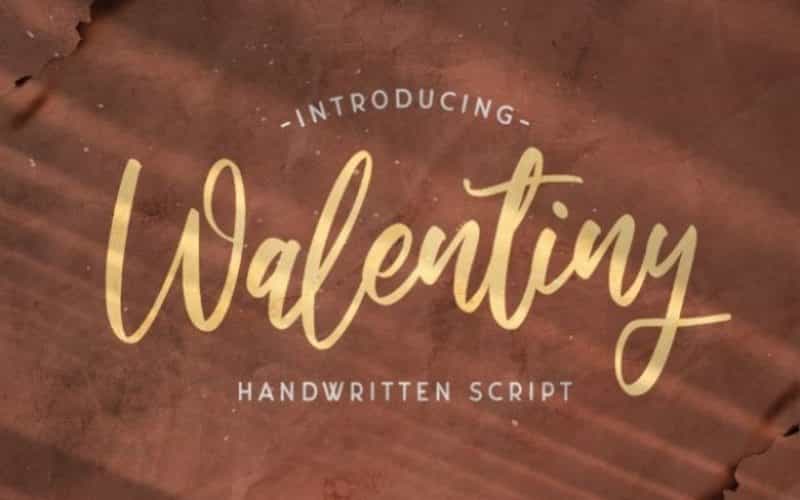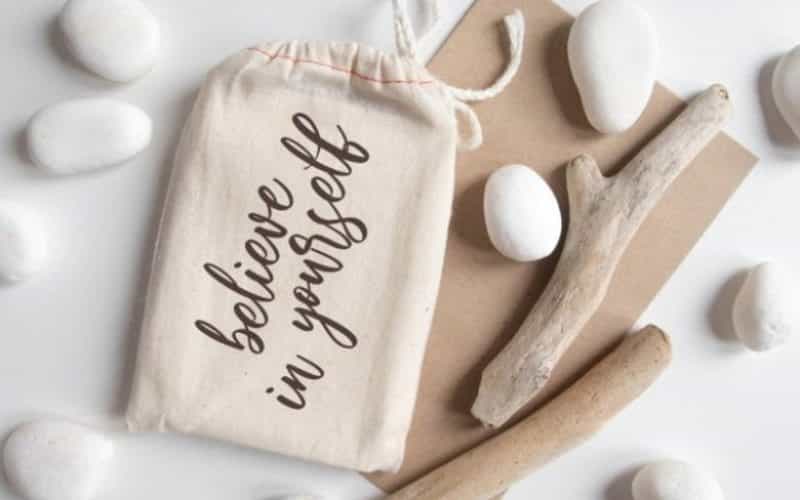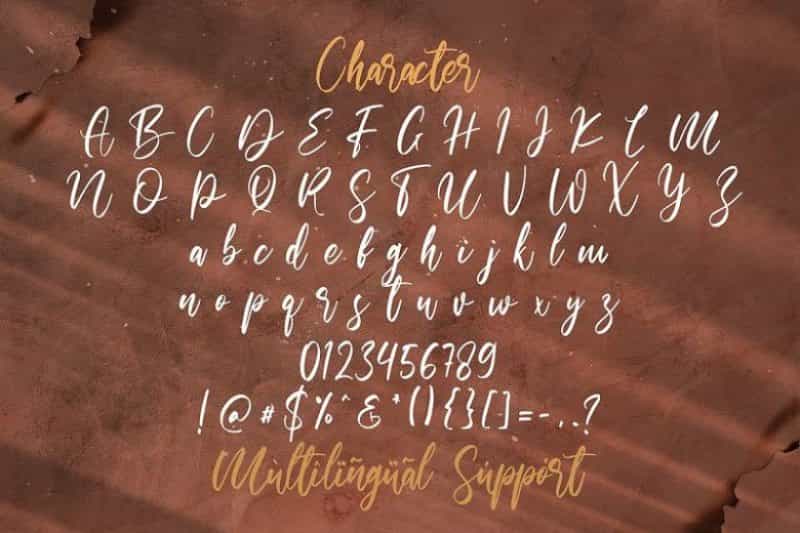
Walentiny is a script font that features Handwritten and Calligraphy style. The Walentiny font is made using digital brush strokes create a realistic look for the font. This font is ideal for wedding invitations, business cards as well as logos, signatures and finally calligraphy.